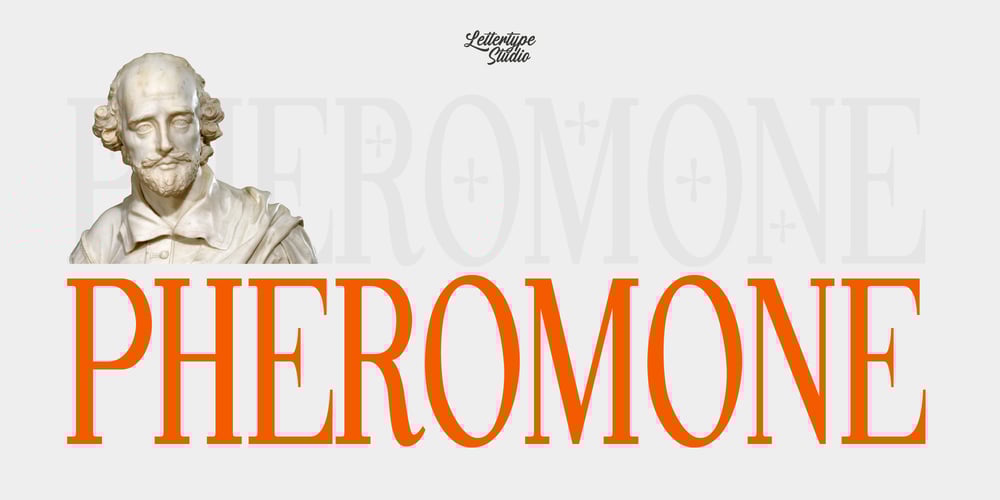
Pheromone Font Family was designed by Diki Pradipta Tri Atmojo and published by Lettertype Studio. Pheromone contains 4 styles and family package options. Pheromone is a high-contrast serif font with a mixed modern and classic style. Pheromone is modern serif font and is perfect be your headline font. The core is a condensed style, this is why can be perfect to be your headline. Pheromone will be perfect for your headline, logo design, branding, clothing, signage, posters, wedding invitations, cosmetics or fashion and so much more! Pheromone will help your project or brand have a unique vintage, classic look, and stand out.